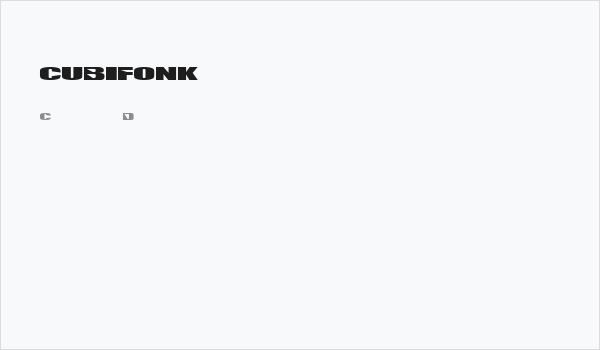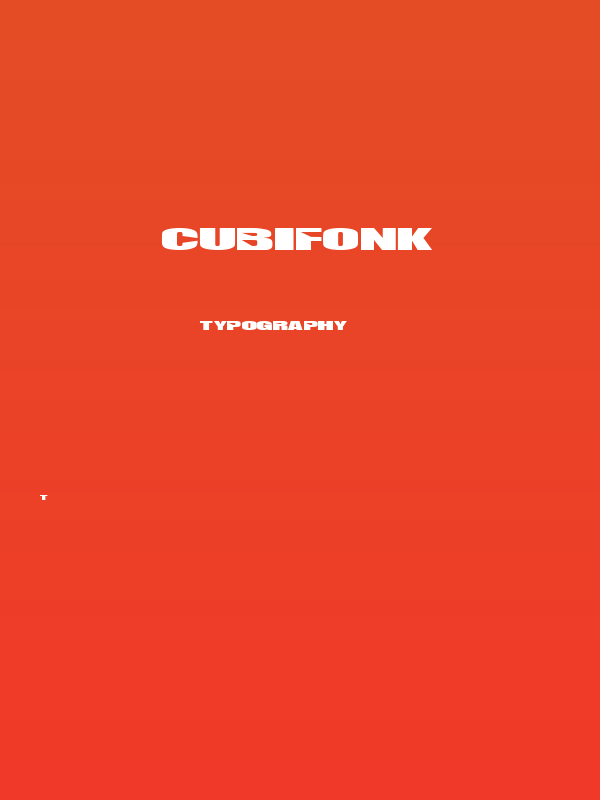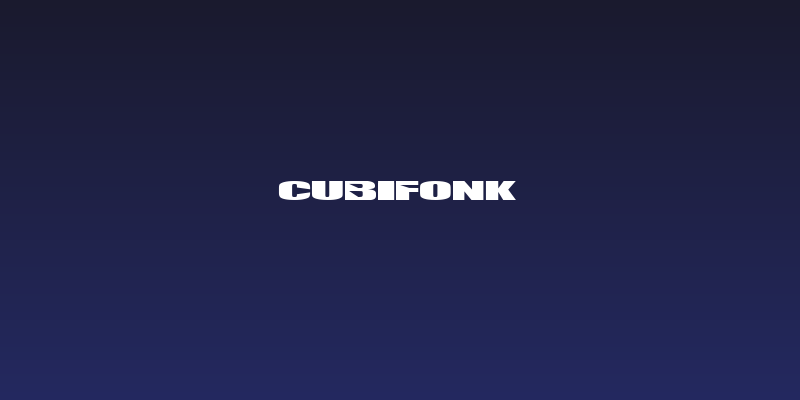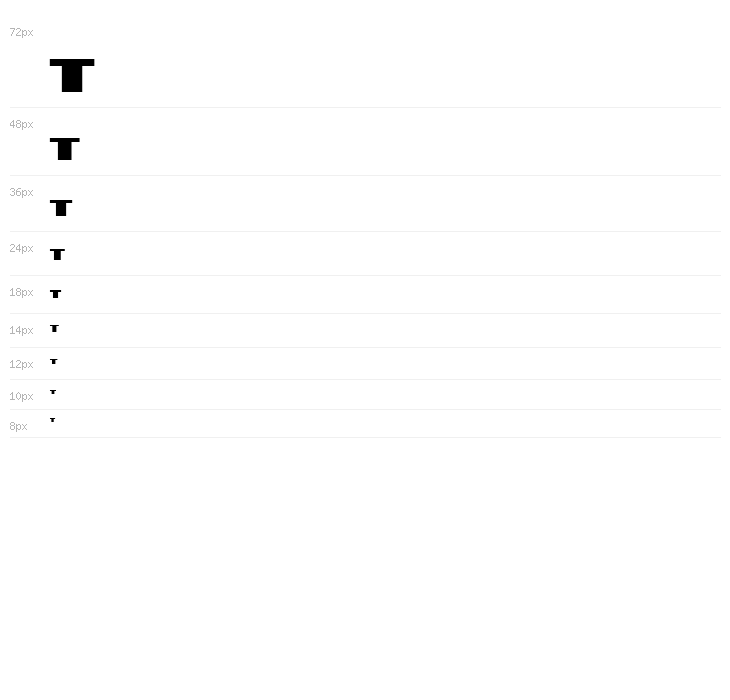
CUBIFONK Font
CUBIFONK Description
This font features a bold and impactful design with a strong geometric influence. The characters are constructed with thick, block-like shapes that convey a sense of strength and stability. The uppercase letters are uniform in height, creating a cohesive and balanced appearance. The font's design is characterized by its wide stance and heavy weight, making it ideal for attention-grabbing headlines and titles. The absence of serifs and the consistent stroke width throughout the characters contribute to its modern and clean aesthetic. This font is well-suited for projects that require a bold and assertive visual presence.
| Proposed Projects | Ideal for branding, posters, headlines, and any design requiring a strong visual impact. |